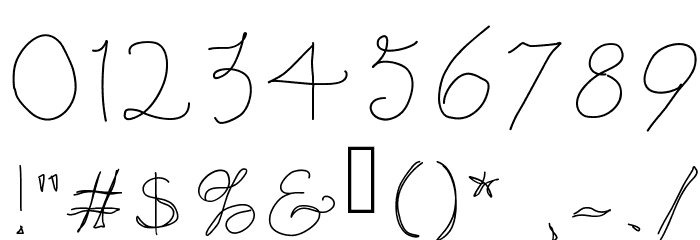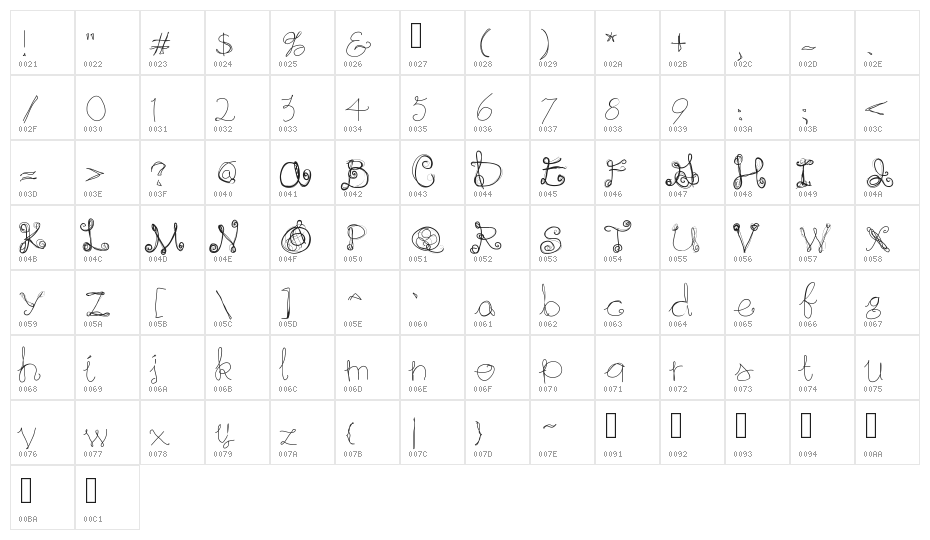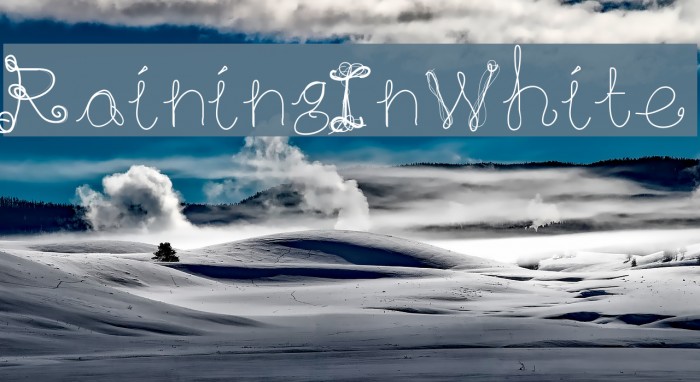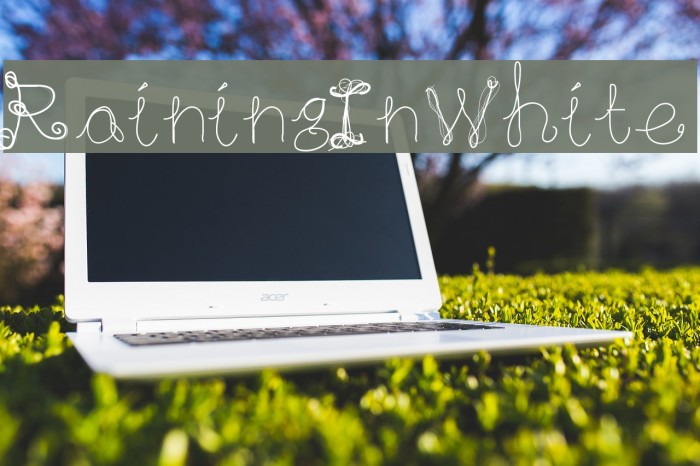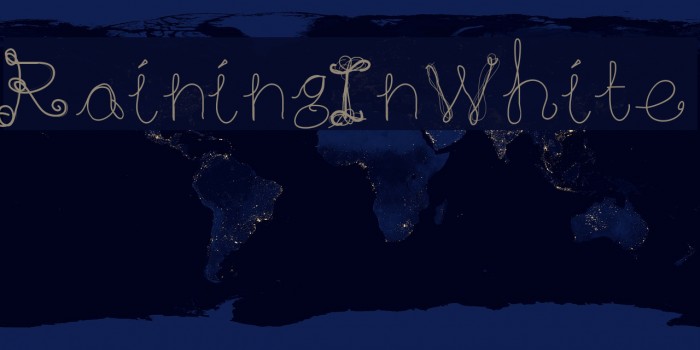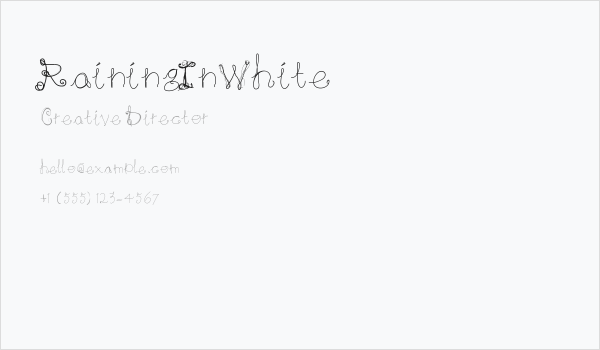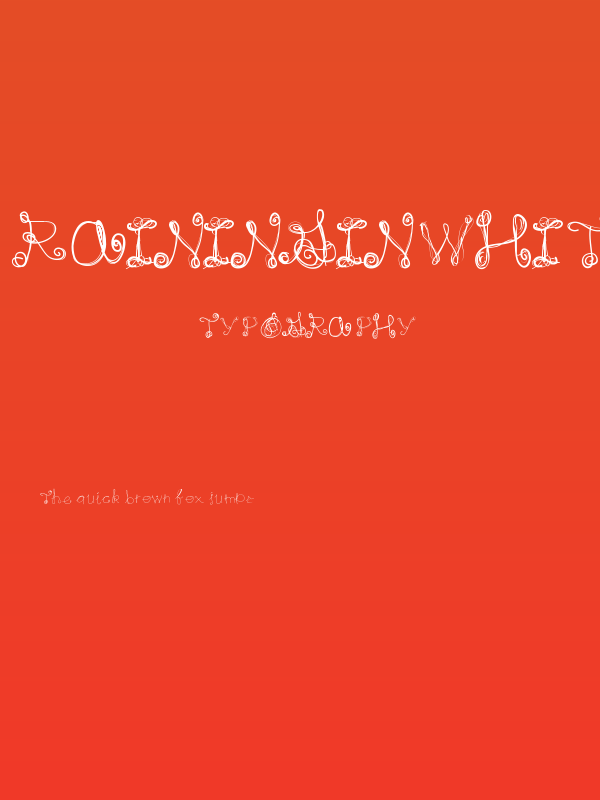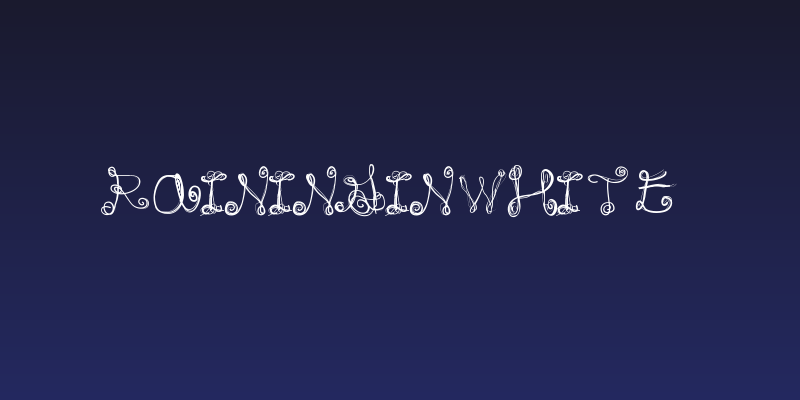
RainingInWhite Font
RainingInWhite Description
This font features an intricate and whimsical design, characterized by its elaborate swirls and loops. The uppercase letters are particularly ornate, with each character displaying a unique combination of curls and embellishments that give it a playful, almost fairy-tale-like appearance. The lowercase letters maintain a similar style but with a slightly more subdued flair, ensuring readability while retaining the font's distinctive charm. Numbers and special characters follow suit, with elegant curves and artistic flourishes that make them stand out. This font is ideal for creative projects that require a touch of elegance and fantasy.
| Proposed Projects | Ideal for invitations, greeting cards, children's books, and fantasy-themed branding. |